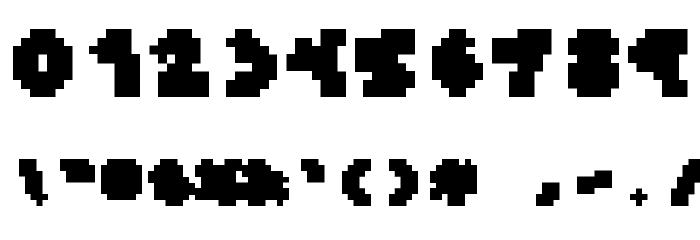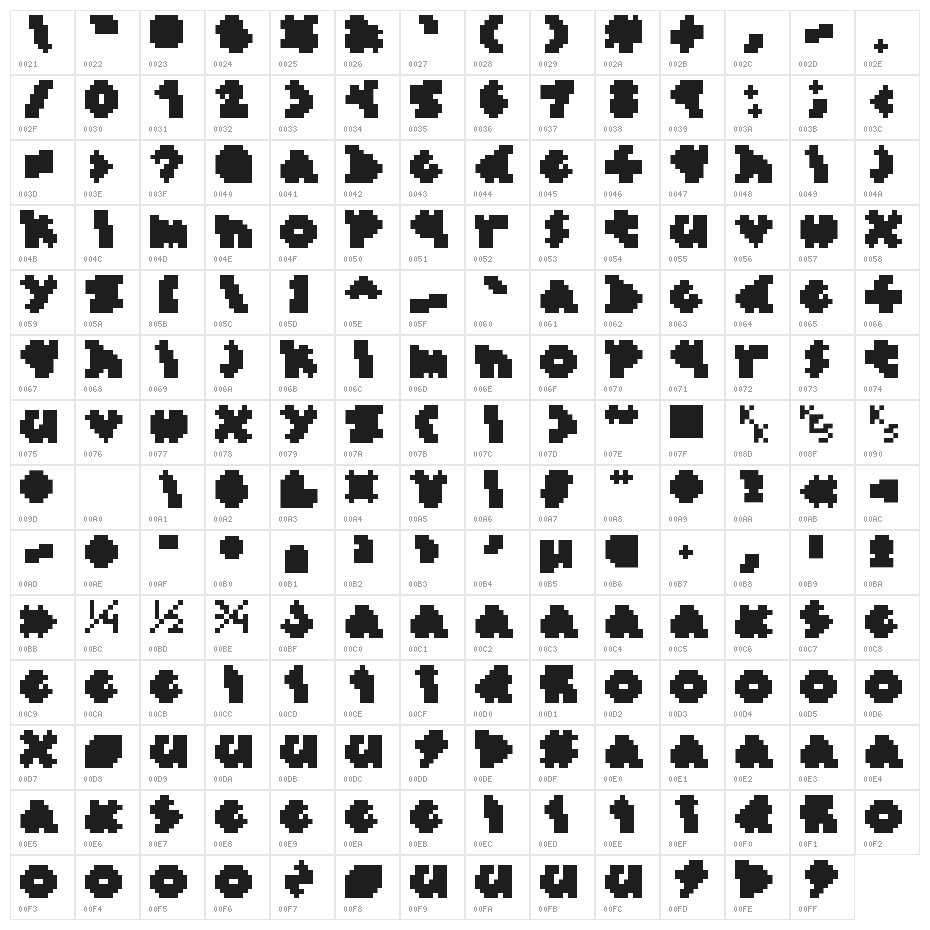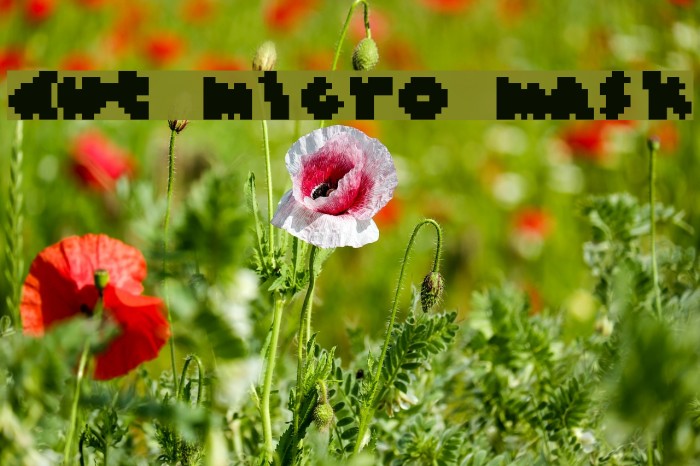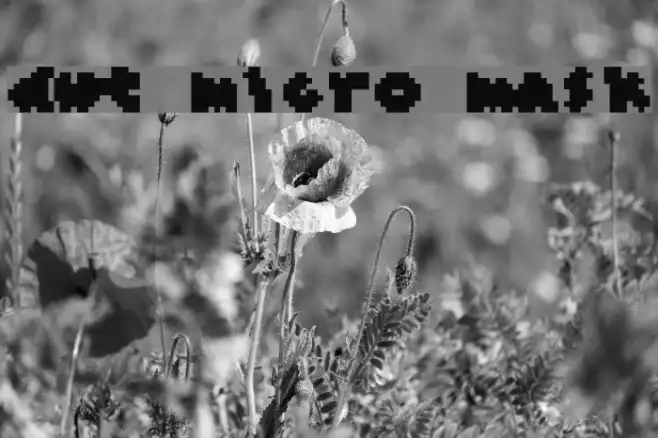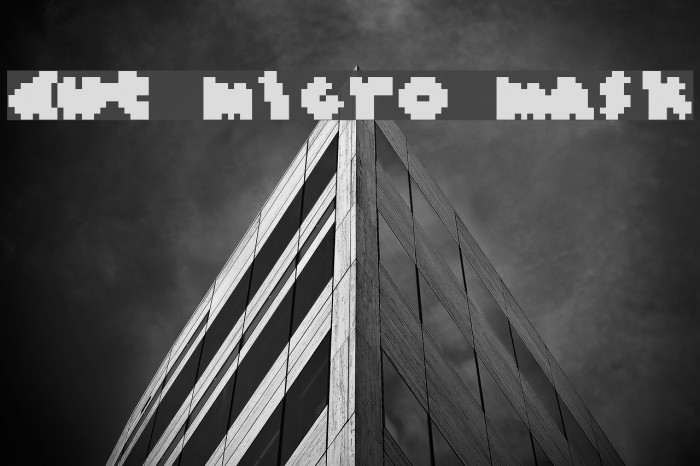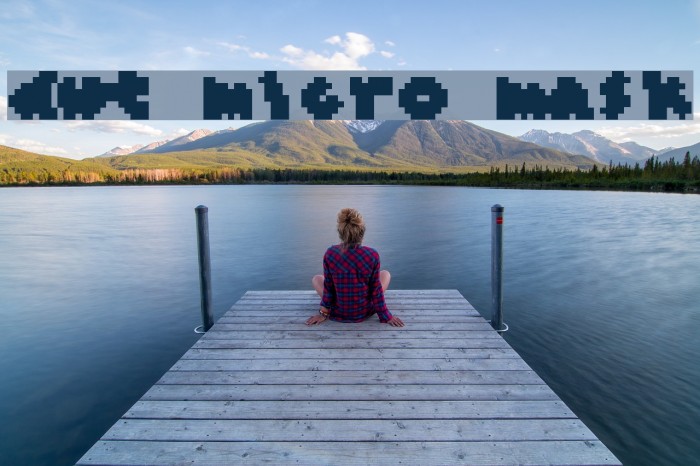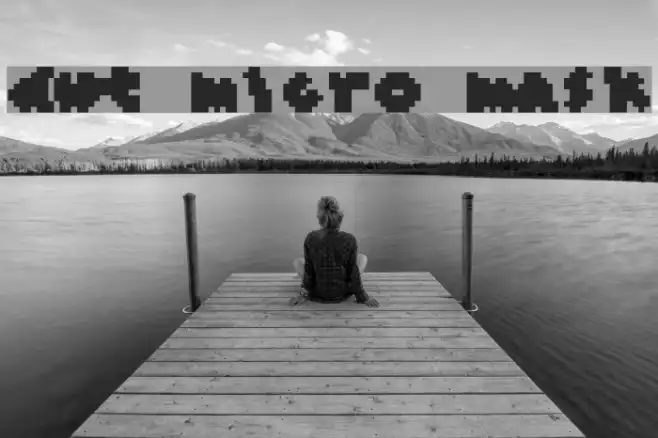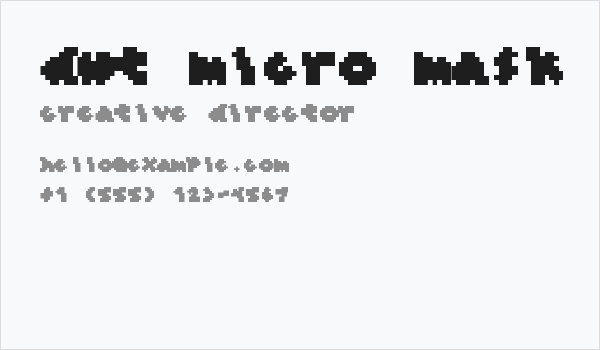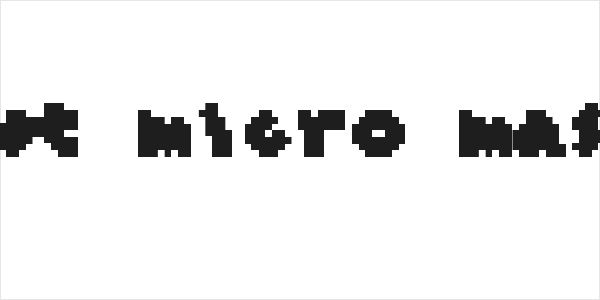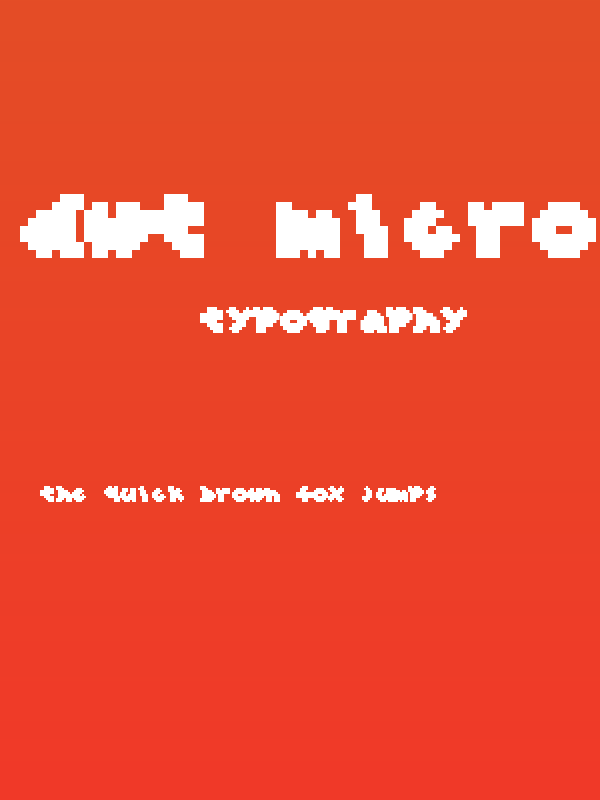
dwt Micro Mask Font
dwt Micro Mask Description
This font features a bold, pixelated style reminiscent of early digital displays and retro video games. Each character is composed of blocky, square shapes that give it a distinctly digital and geometric appearance. The uppercase and lowercase letters maintain a consistent height, contributing to a uniform look across the text. Numbers and special characters follow the same pixelated design, ensuring a cohesive aesthetic throughout. The font's unique style makes it stand out, evoking a sense of nostalgia for classic arcade games and early computer graphics.
| Use Case | Logos, Posters, Video game graphics |
| Proposed Projects | Ideal for retro-themed designs, video game graphics, digital art projects, and any creative work that seeks to capture a nostalgic, arcade-style feel. |